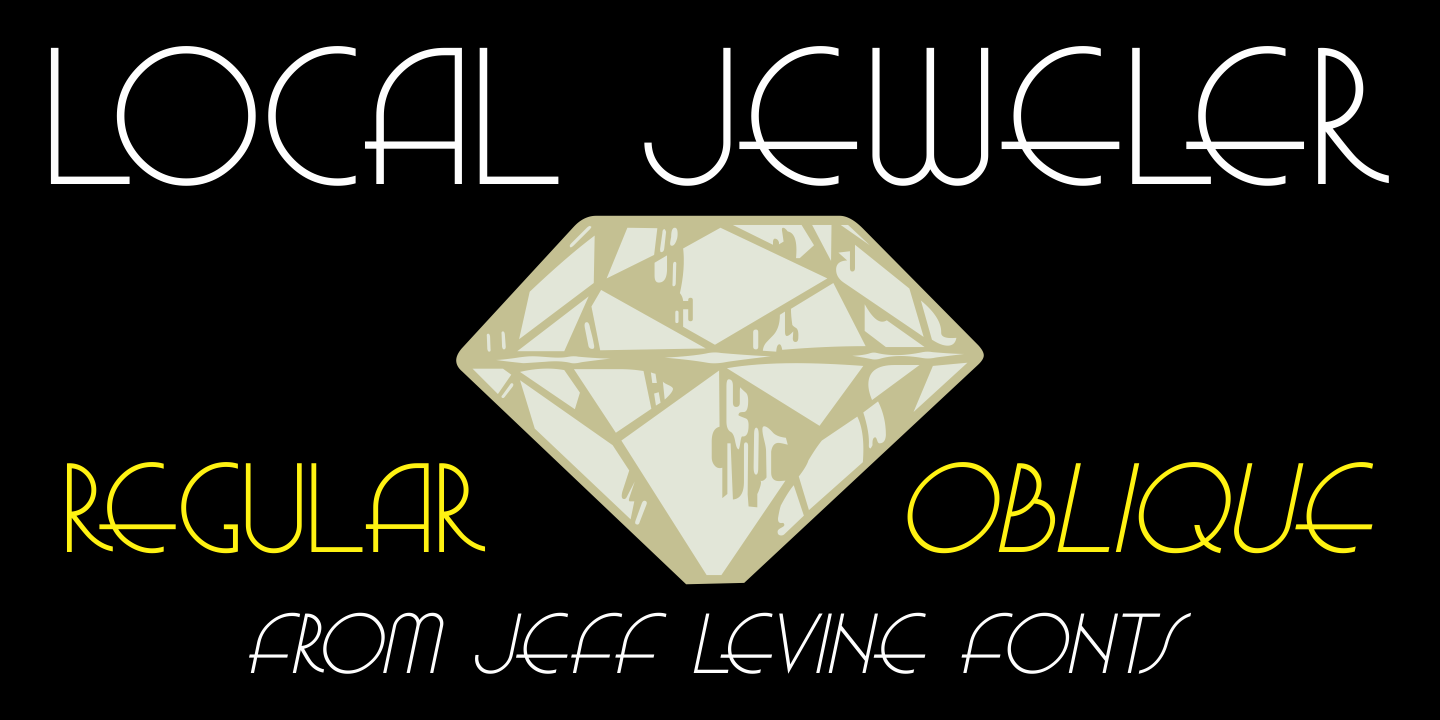
Local Jeweler JNL Font is perfect for luxury design projects including jewelry stores, precious gemstone dealers, watch boutiques, vintage jewelry collections, engagement ring specialists, luxury accessories brands, fine jewelry craftsmanship, and elegant lifestyle campaigns. This sophisticated typeface excels in diamond merchants, custom jewelry designers, precious metals dealers, luxury watch retailers, and projects that celebrate fine craftsmanship and precious jewelry artistry.
What makes Local Jeweler JNL Font exciting is its refined jewelry character that perfectly captures the essence of precious craftsmanship and luxury elegance. The font features delicate letterforms with gemstone-inspired details that reflect the meticulous artistry and sparkling beauty of fine jewelry creation. Its precious design elements embody the spirit of luxury craftsmanship and jewelry tradition, making it perfect for projects that need to convey elegance, value, and connection to jewelry heritage. The carefully crafted jewel-like proportions create an atmosphere of luxury sophistication and precious artistry.
Local Jeweler JNL Font comes in multiple family variations including precious, elegant, refined, and luxury styles. Each weight maintains the distinctive jewelry character while offering different levels of luxury intensity and precious presence. The font family includes gemstone alternates, precious ligatures, and jewelry variations that provide designers with comprehensive options for creating truly elegant and authentically luxurious typographic compositions that celebrate fine jewelry.